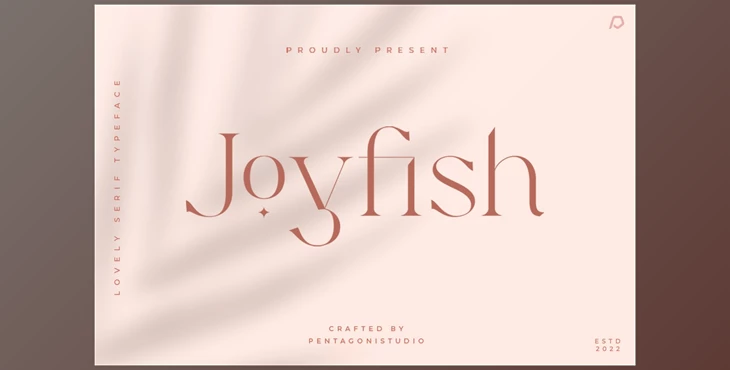
Some great features of Joyfish | Lovely Serif Font:
What is Joyfish?
"Joyfish" is likely the name of a serif font in the world of typography and graphic design. Serif fonts are characterized by the presence of small lines or strokes at the ends of the characters, known as serifs. These fonts often convey a sense of tradition, formality, and readability. When a font is described as "Lovely," it typically suggests that it has an appealing and aesthetically pleasing design.